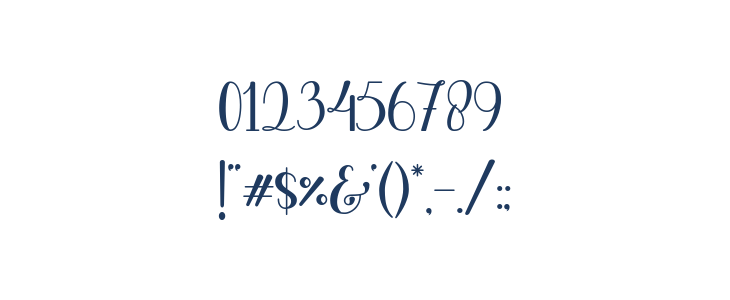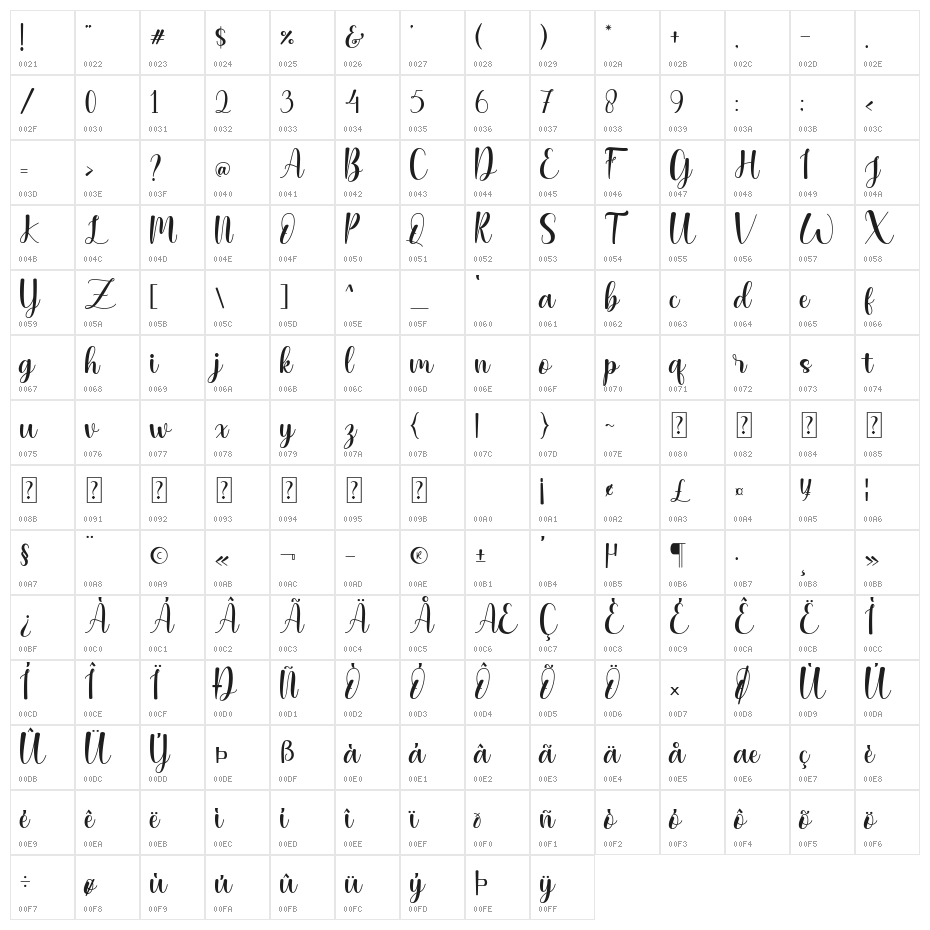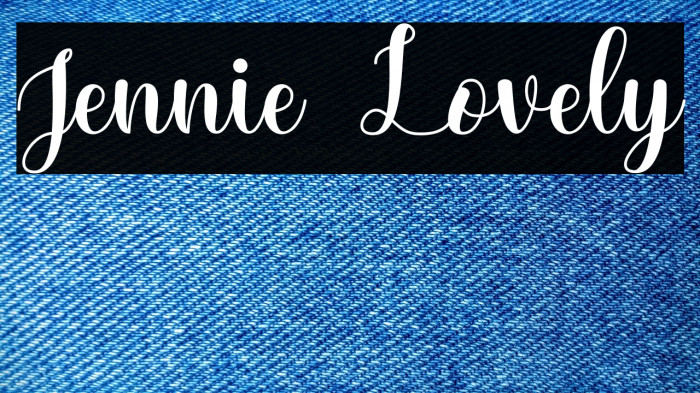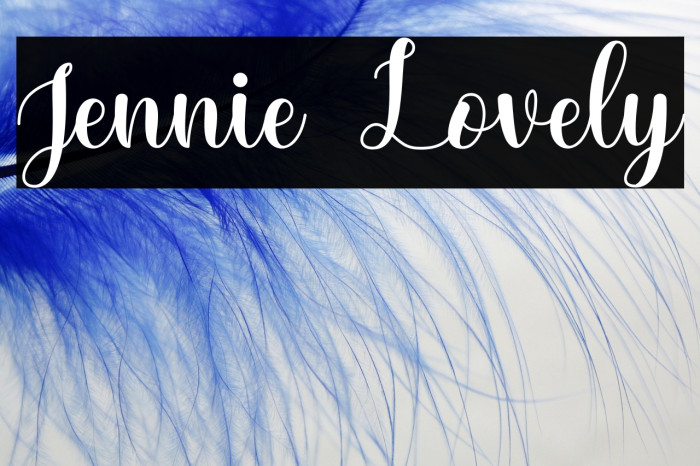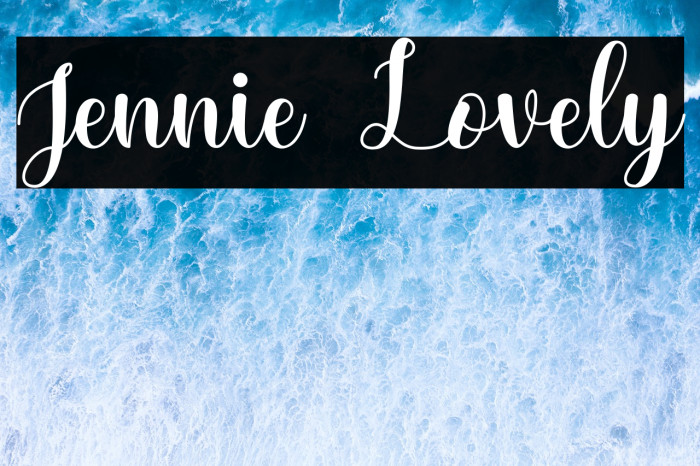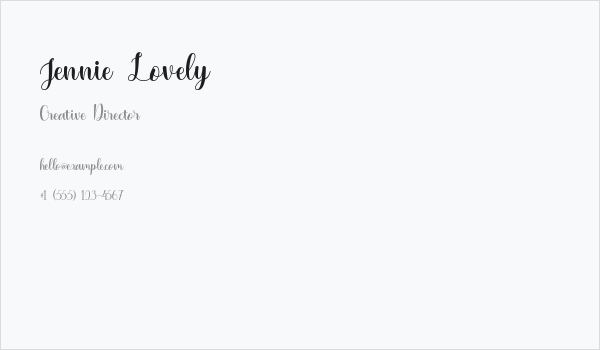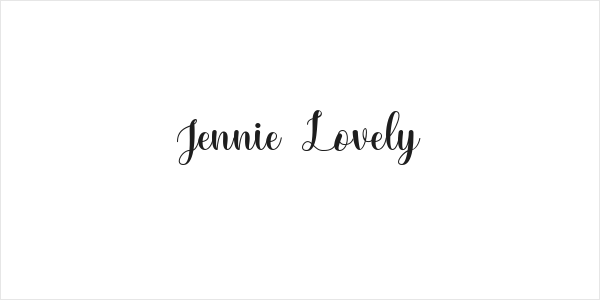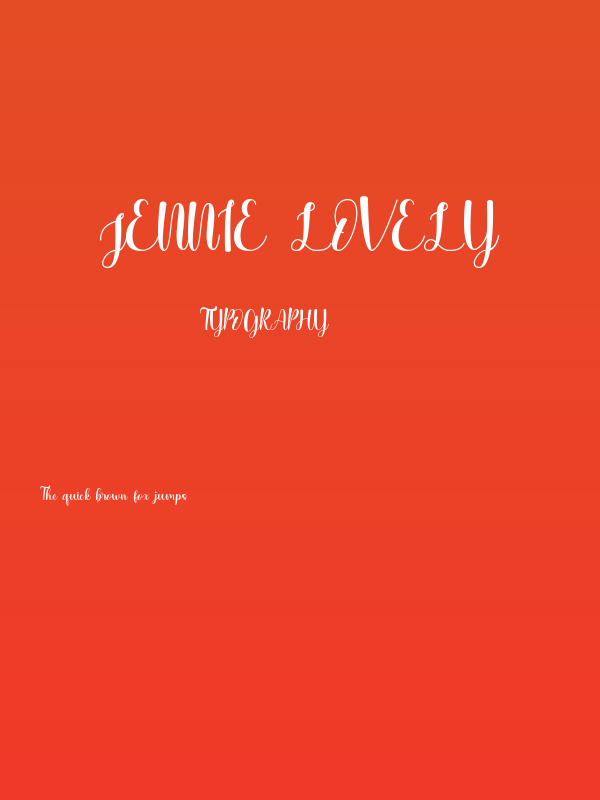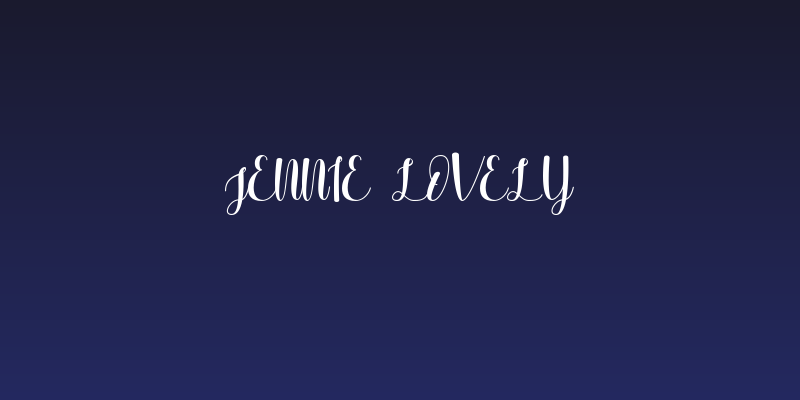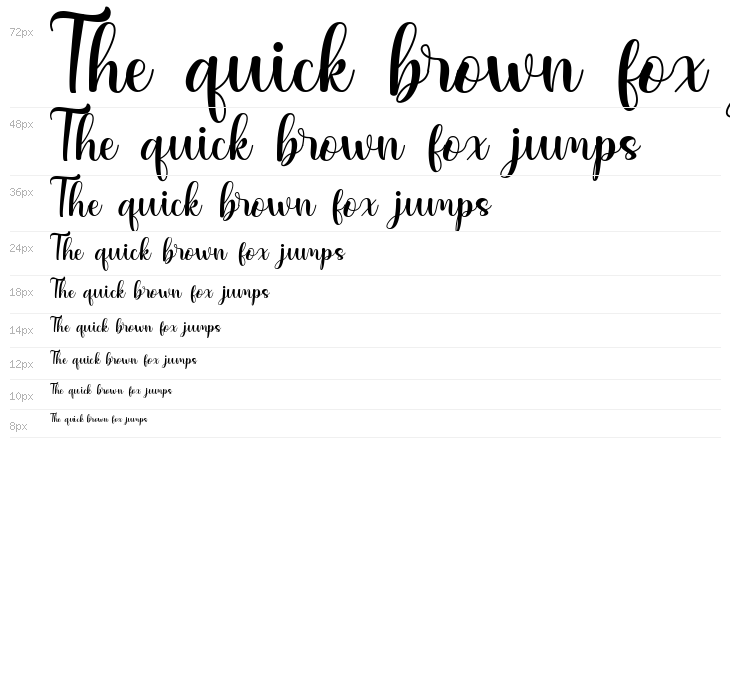
Jennie Lovely Font
Jennie Lovely Description
This font exudes a playful and elegant charm, characterized by its flowing, cursive style. The letters are interconnected with smooth, sweeping strokes that give it a handwritten feel. The uppercase letters are particularly ornate, with flourishes that add a touch of sophistication. The lowercase letters maintain a consistent style, ensuring readability while retaining the font's decorative nature. The numerals and special characters are crafted with the same attention to detail, making them seamlessly integrate with the alphabet. This font is perfect for projects that require a personal, artistic touch.